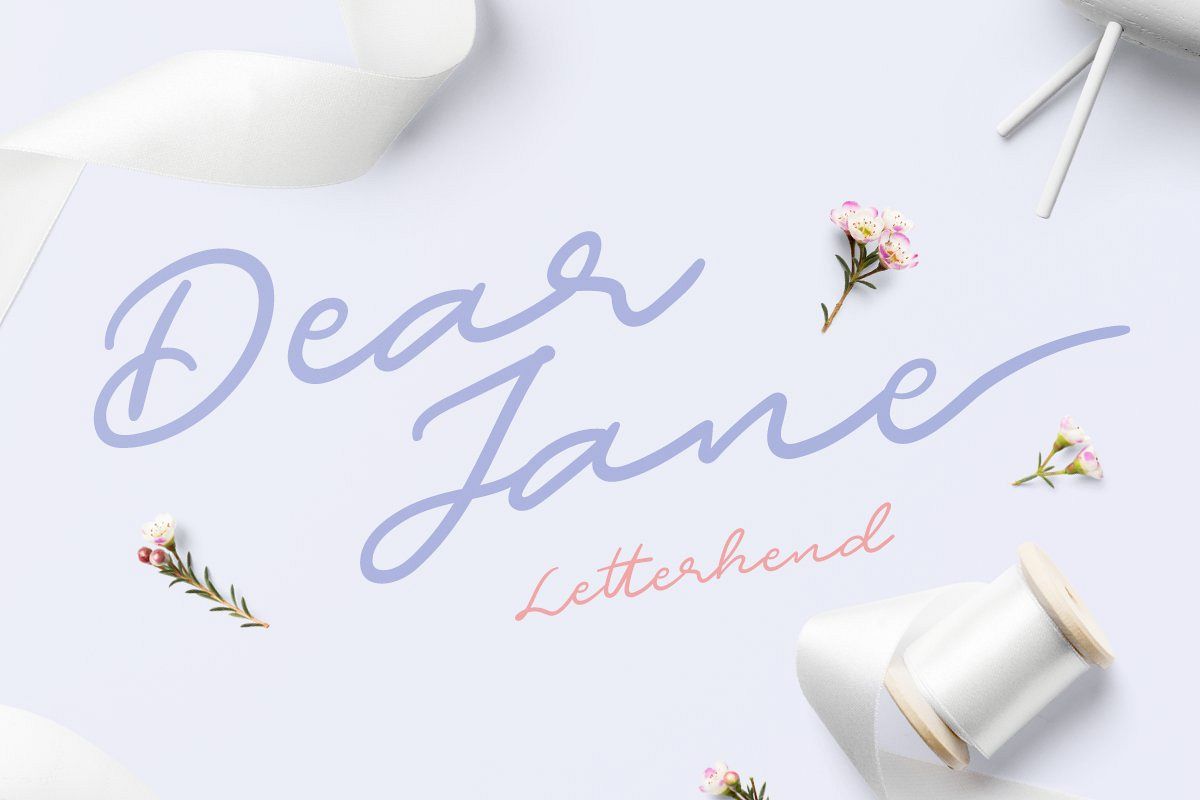
Dear Jane Script
Dear Jane
Dear All, here's comes Dear Jane. This lovely typeface was made from actual hand writing so it has the natural and romantic feel. Perfect to be used especially for signature, wedding invitation, greeting cards, logo, photography, quotes, apparel design, and any design needs. As usual, the font comes with many opentype features such as ligatures, stylistic set alternate, etc and also support multilingual.